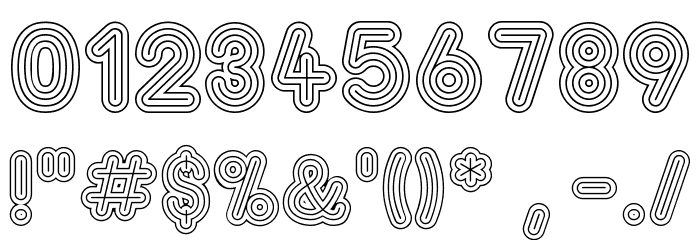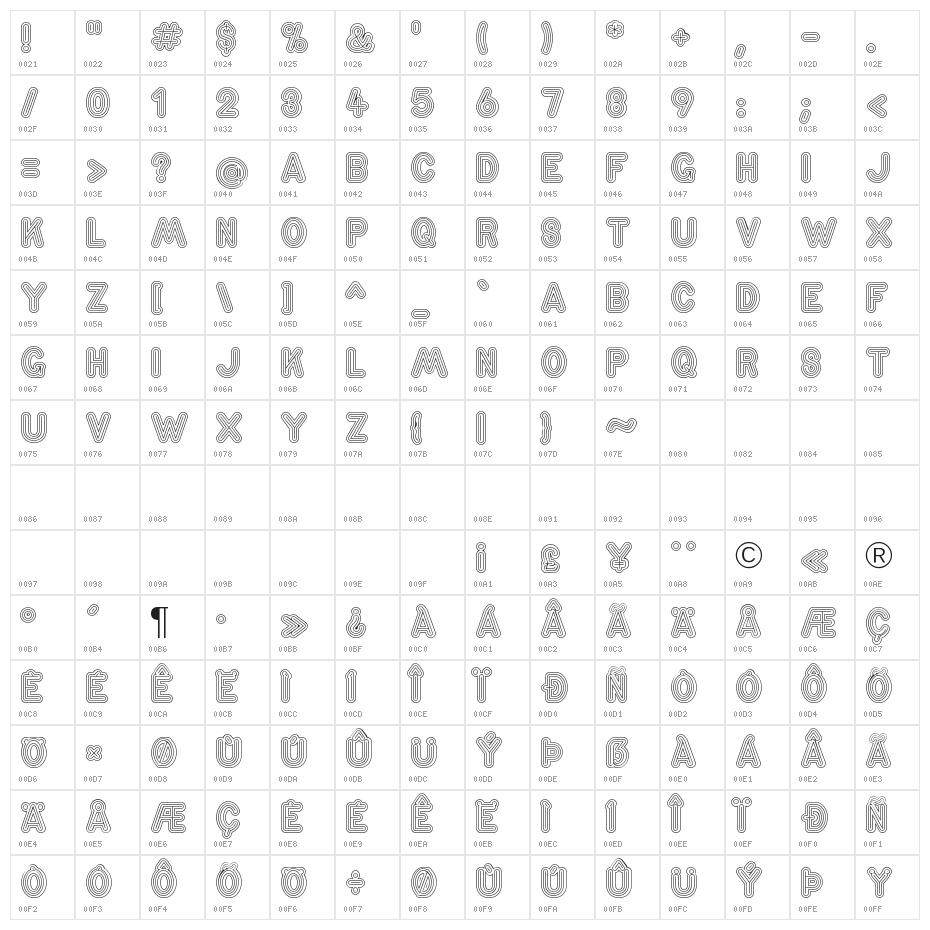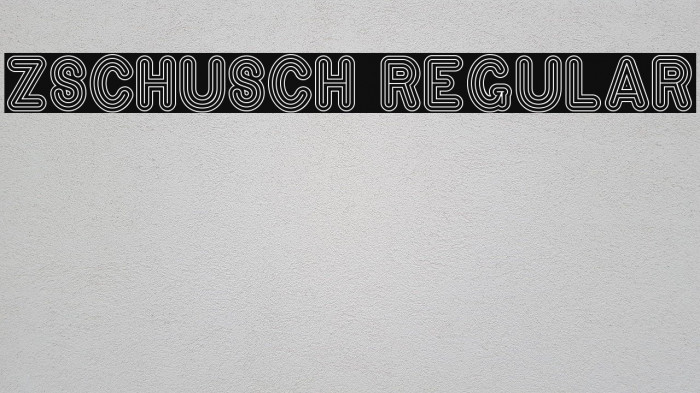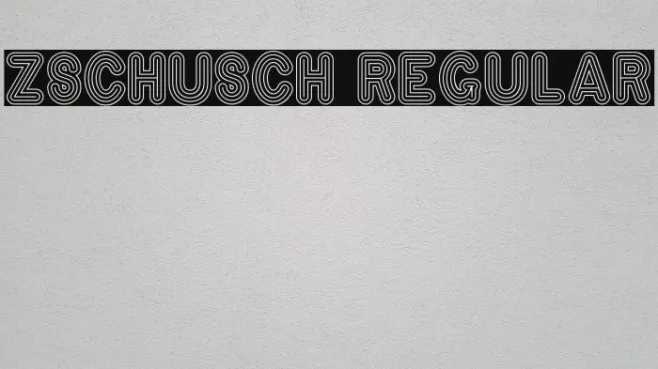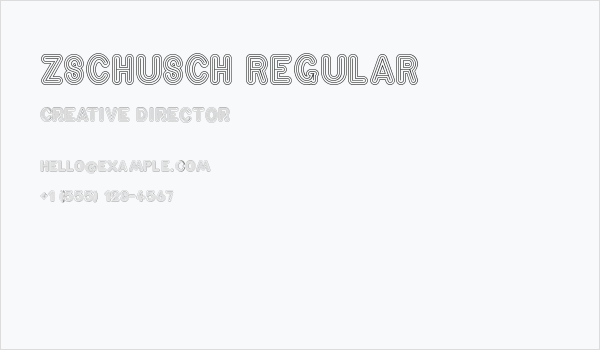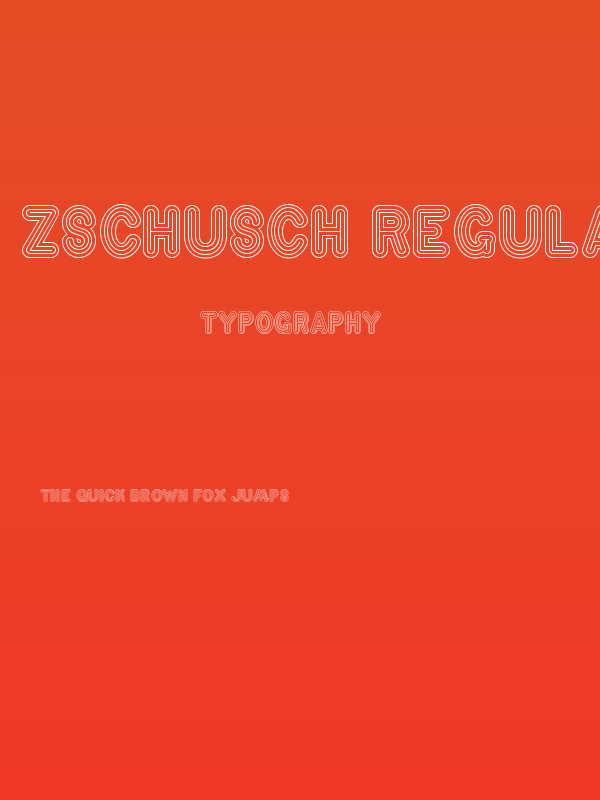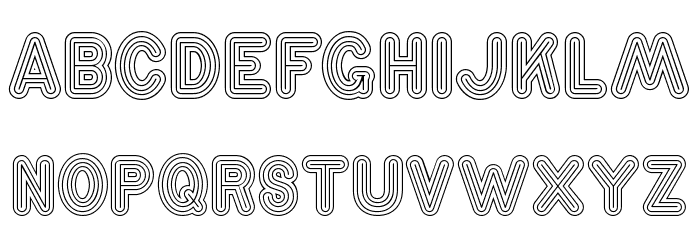
Zschusch Regular Font
Zschusch Regular Description
This font features a bold, decorative style with a unique outline effect that gives each character a layered appearance. The letters are uppercase and lowercase, with numerals and a variety of special characters included. The design is playful and eye-catching, making it suitable for creative projects. The characters have a consistent width and a slightly condensed form, which adds to the compact and structured look. The font's high contrast between the thick outlines and the inner space creates a striking visual impact, ideal for designs that require a strong and memorable typographic presence.
| Proposed Projects | Ideal for posters, logos, headlines, and any design that requires a bold and playful typographic style. |